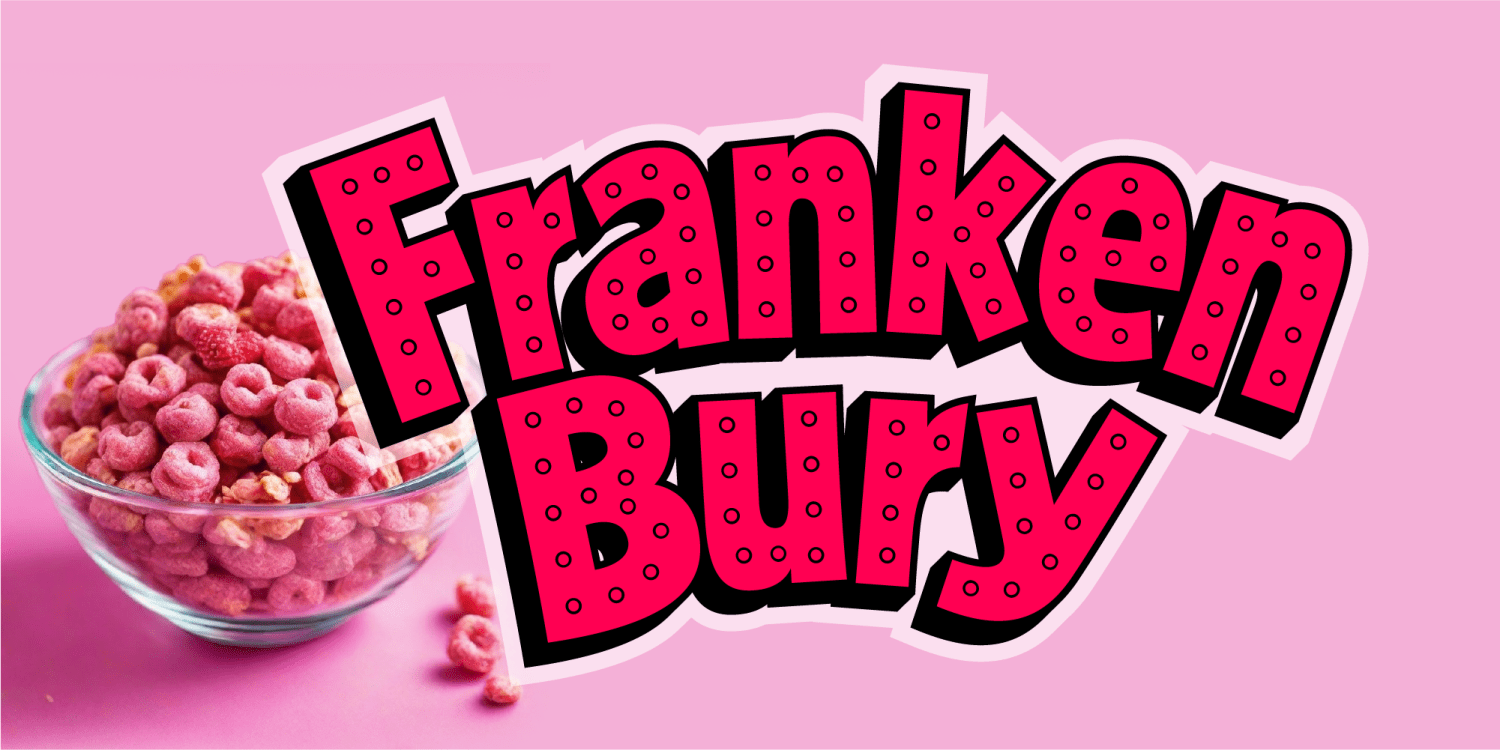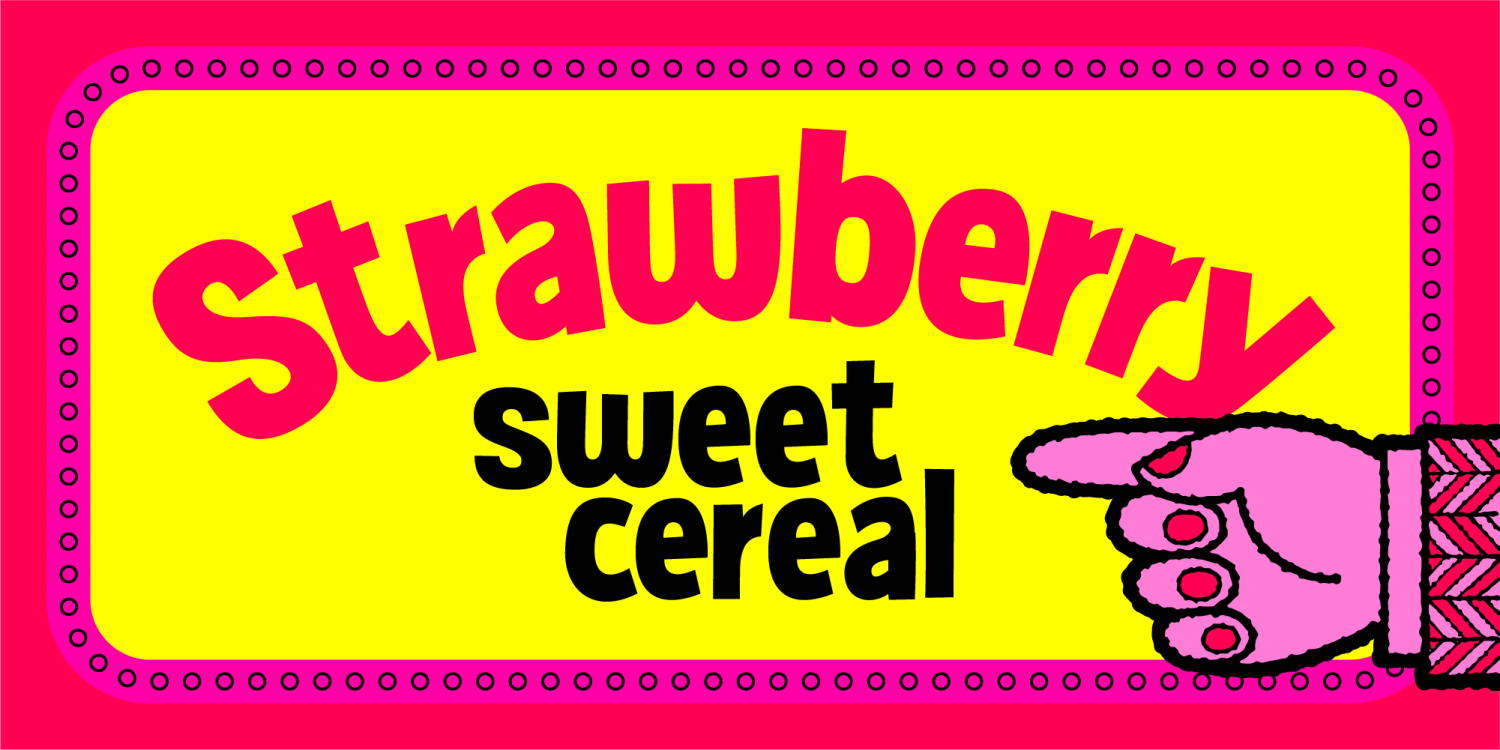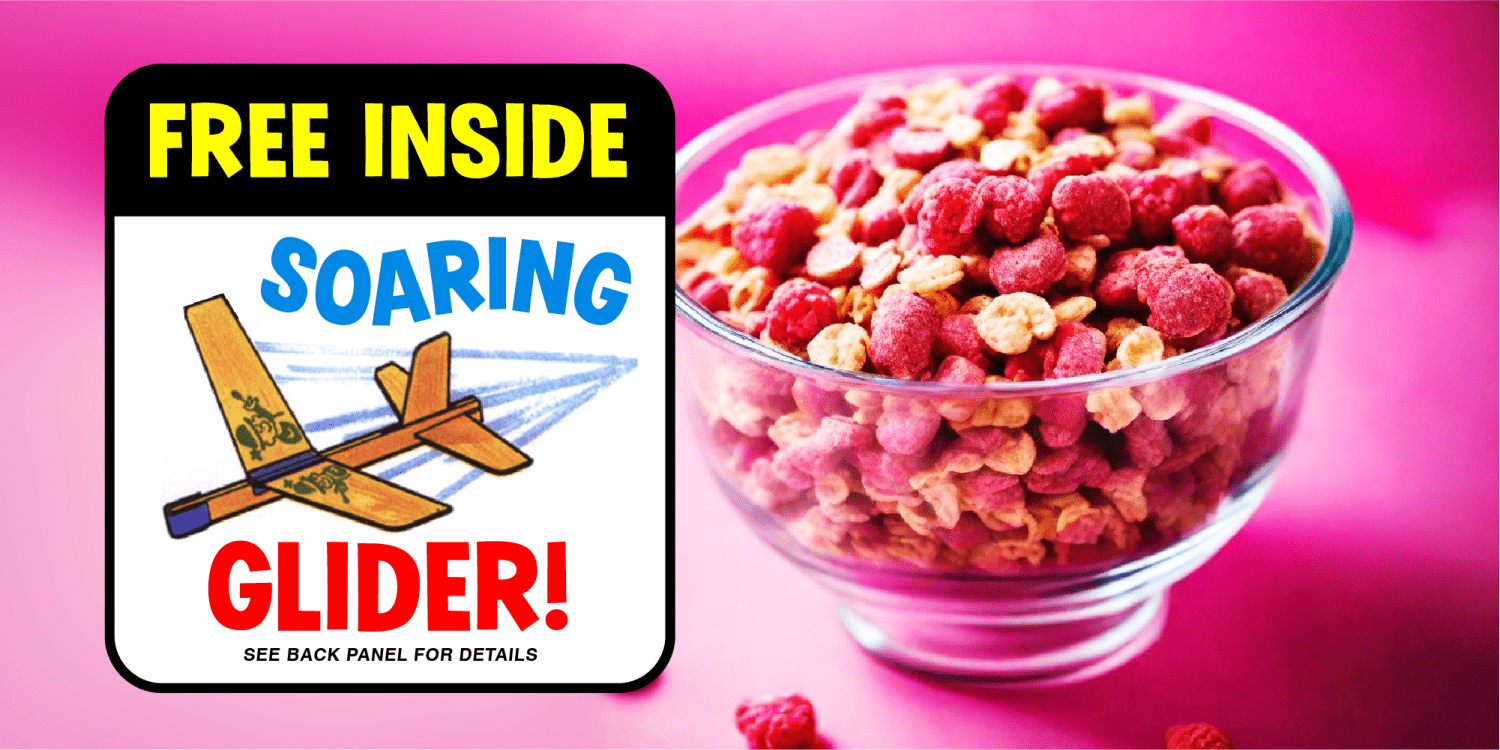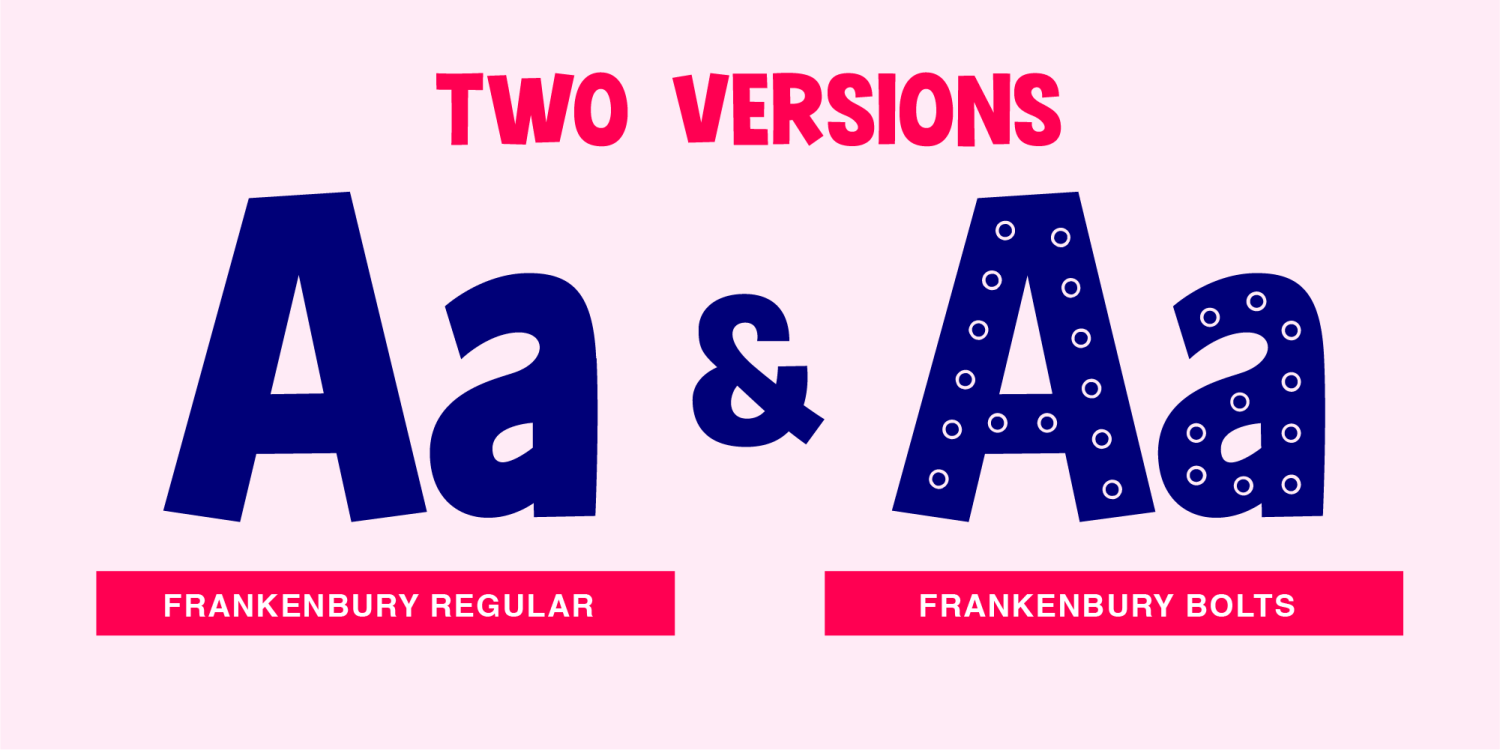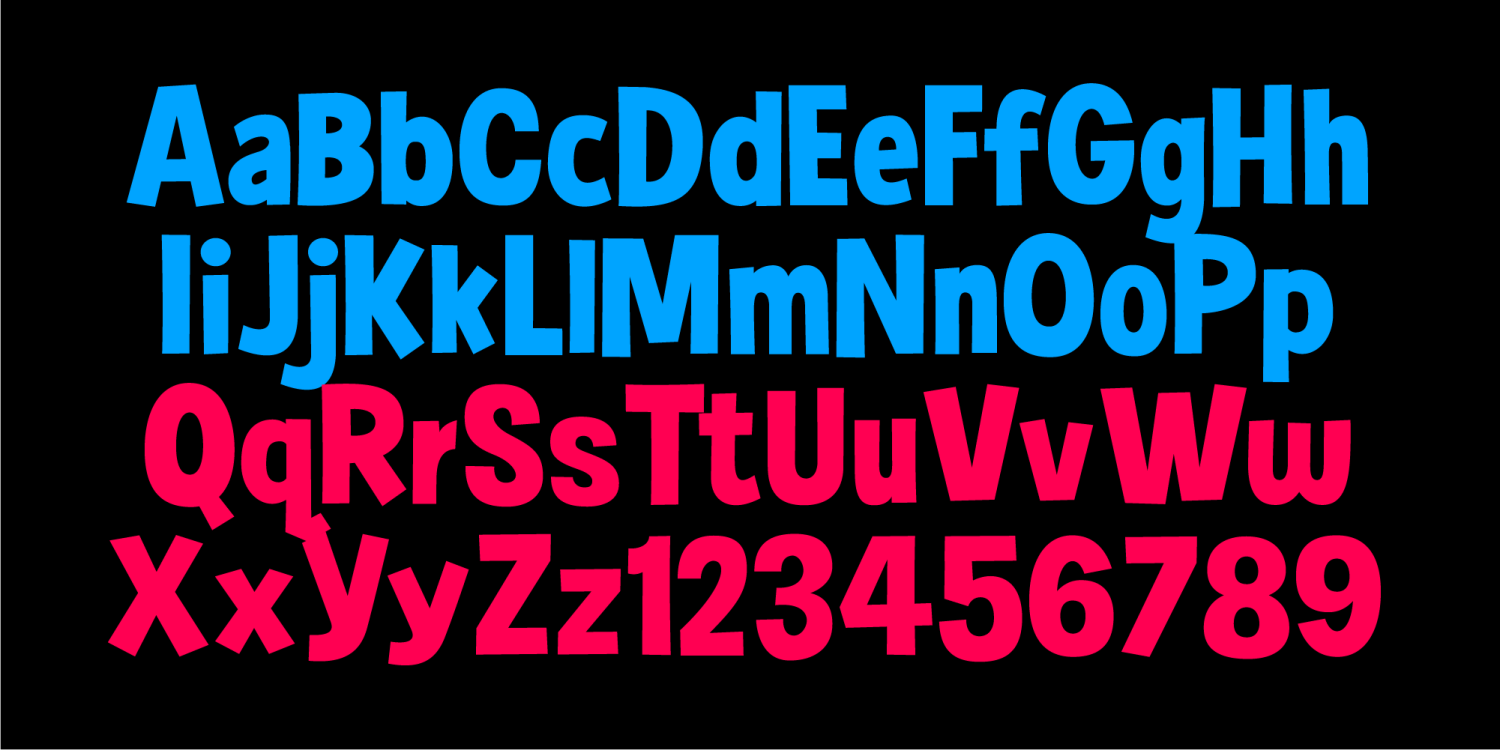
Frankenbury
Introducing Frankenbury, a delightful typographic tribute to the spooktacular sweetness of 1970s breakfasts!
Frankenbury Regular
Frankenbury Bolts